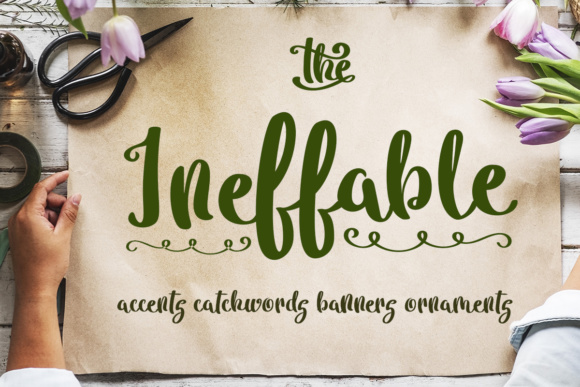
Introducing the Ineffable Font Family: Where Elegance Meets Exuberance
Journey into the world of Ineffable, a script font family that transcends the boundaries of ordinary typography. This playful hand-drawn creation by the esteemed Lickable Pixels is an ode to artistic expression, inviting you to embrace your unique voice and make a statement with every word you write.
With its graceful swashes, mesmerizing ornaments, and captivating banners, Ineffable is a font family that speaks to the heart. Its whimsical nature instantly adds a touch of enchantment to any design, whether it's an enchanting invitation, a captivating logo, or a heartfelt greeting card.
Express Yourself with Ineffable
Unleash your creativity and allow Ineffable to carry your words with flair. This font family is perfect for adding a personal touch to your projects, whether you're a savvy designer, a passionate crafter, or simply someone who loves to add a touch of magic to their everyday life.
With Ineffable, you'll discover a world of endless possibilities. Craft enchanting wedding invitations that capture the essence of your love story, create eye-catching social media posts that stand out from the crowd, or design unique branding materials that leave a lasting impression.
The Ineffable Experience
When you choose Ineffable, you're choosing more than just a font; you're choosing an experience. This font family is designed to inspire, uplift, and leave an imprint on the hearts of those who encounter it.
Immerse yourself in the beauty of Ineffable's meticulously crafted swashes, each one a work of art in its own right. Adorn your designs with exquisite ornaments that add a touch of elegance and sophistication. And let the captivating banners draw attention to your words, creating a visual feast that commands attention.